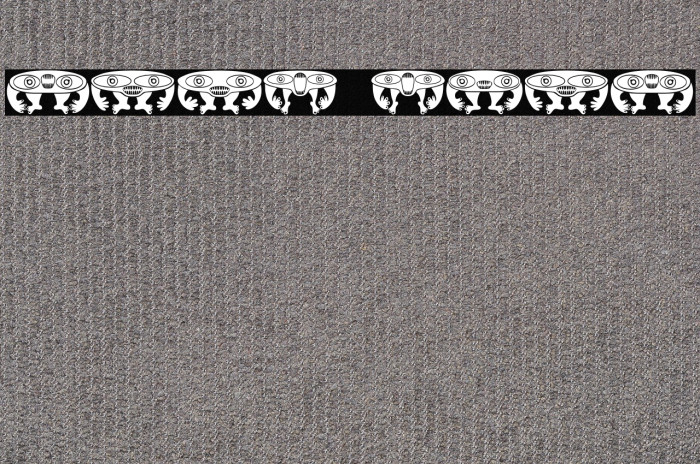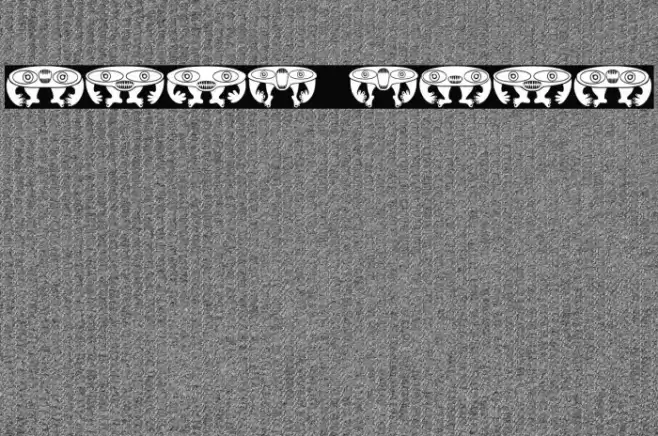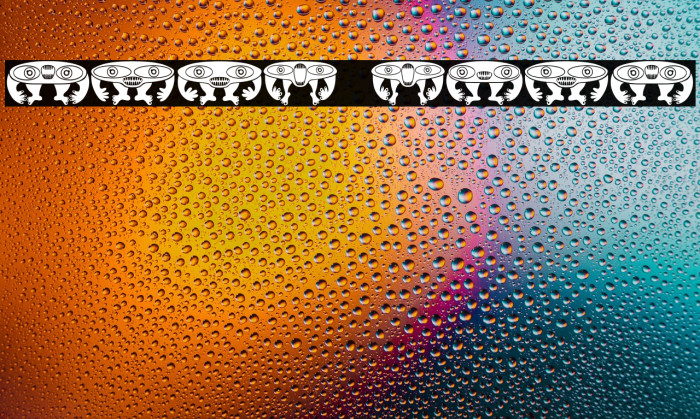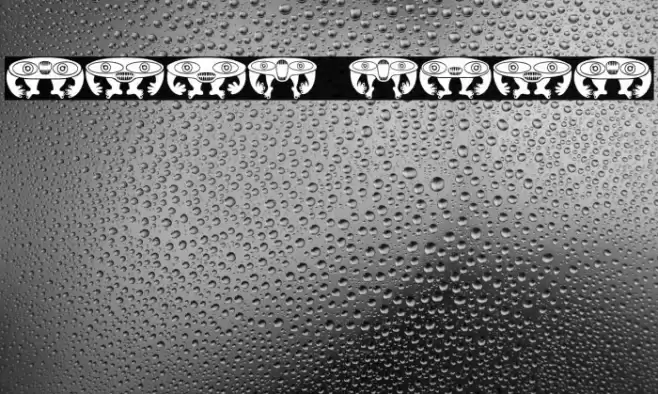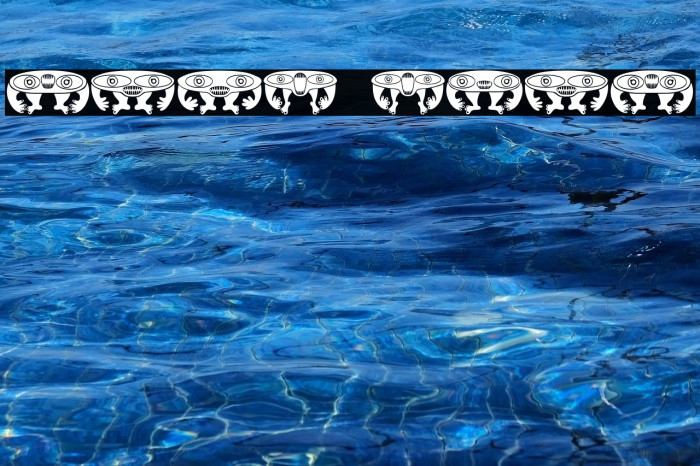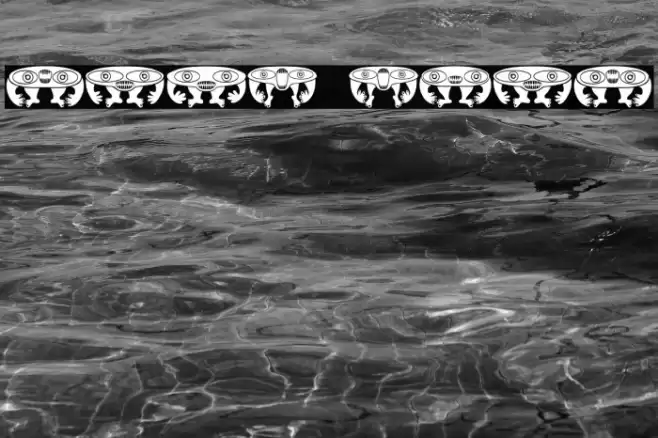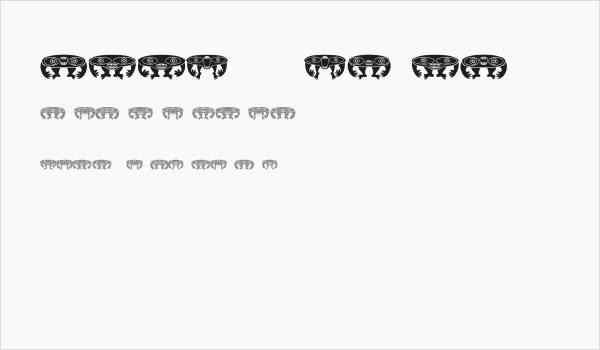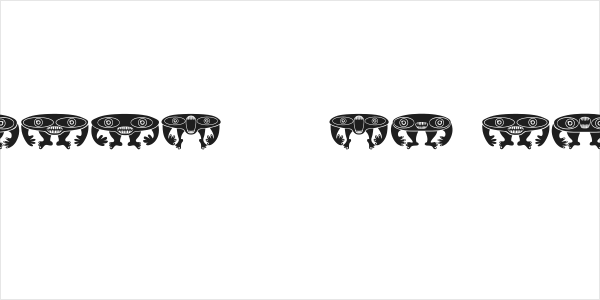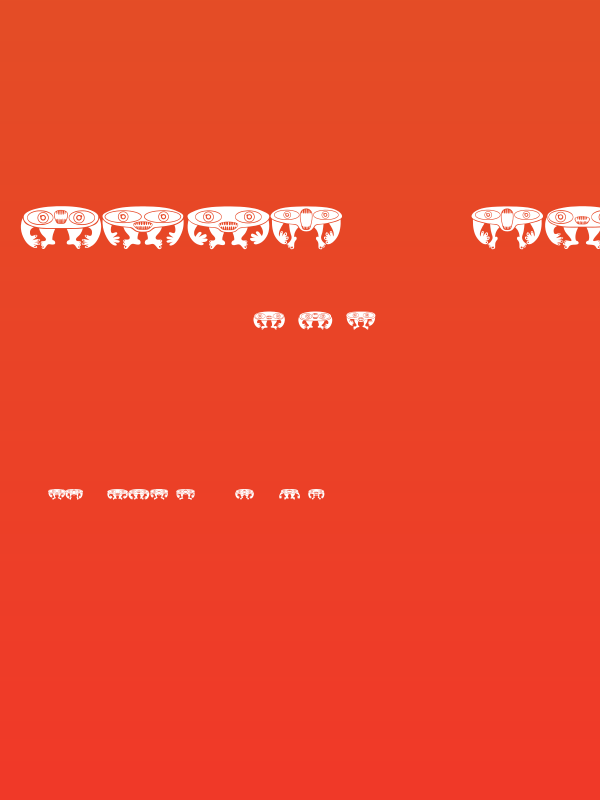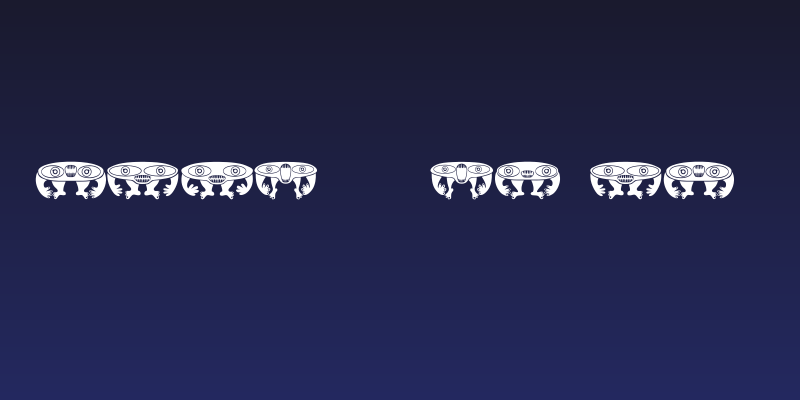
Aliens Regular Font
Aliens Regular Description
This font features a unique and playful design, incorporating alien-like figures as characters. Each letter is represented by a stylized alien head, complete with large eyes and antennae, giving it a whimsical and extraterrestrial feel. The characters are bold and distinctive, making them stand out with a decorative flair. The font is highly decorative, focusing more on visual impact than readability, making it suitable for creative and themed projects. Its quirky and imaginative style is perfect for capturing attention and adding a fun element to any design.
| Proposed Projects | Ideal for sci-fi themed posters, children's book covers, party invitations, and novelty items. |